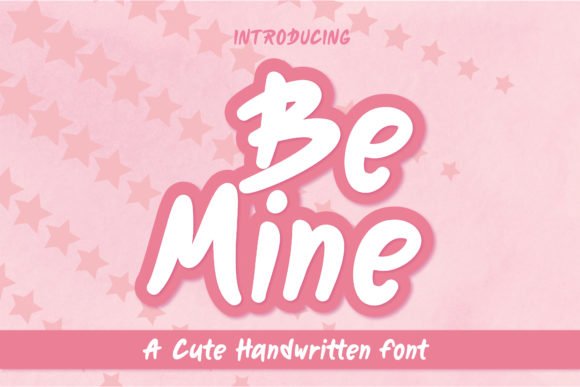
The Perfect Font to Make Your Designs Say ‘Be Mine’
Have you ever stared at a blank page, struggling to find the right words to express your creativity? You’re not alone. We’ve all been there, searching for that perfect font to bring our ideas to life. That’s where the Be Mine Font comes in – a charming, casual handwritten font that adds a personal touch to any design.
With its unique, natural style, the Be Mine Font is perfect for designers looking to add a handwritten flair to their projects. Whether it’s a heartfelt quote, a birthday card, or a company logo, this font is sure to make your design stand out. Its versatility makes it a valuable asset for any designer, and its beauty is undeniable.
Be Mine Font Key Features
- Font Size: Available in 2 font sizes: Regular (approximately 12pt) and Script (approximately 18pt).
- Resolution: Optimized for high-resolution displays (up to 300 DPI).
- Unique Characteristics: The Be Mine Font features a unique, hand-drawn design with playful, cursive script and bold, rounded edges.
- Language Support: Supports multiple languages, including English, Spanish, French, German, Italian, and more.
- Font Style: Available in both Regular and Script styles, with a range of font weights and ligatures.
Be Mine Font Review
At first glance, Be Mine Font seems like a sweet and charming script font perfect for Valentine’s Day-themed projects or romantic designs. ✨ The font’s soft and cursive lines give it a feminine touch, making it ideal for wedding invitations, greeting cards, or social media posts. ✨ The font’s versatility also allows it to be used for a wide range of creative projects, from stationery to gift tags.
However, upon closer inspection, I noticed a few limitations that may affect its usability. ⚠️ The font’s spacing and letterform design can be inconsistent, which may lead to layout issues or poor readability in certain contexts. ⚠️ Additionally, the font’s size and style options are limited, making it difficult to achieve the desired level of customization.
Overall, Be Mine Font is a lovely script font that can add a touch of whimsy and romance to your designs. While it may not be the most versatile or professional font, it’s perfect for personal projects or creative endeavors where a playful, handwritten feel is desired.
Here are some pros and cons to consider:
- ✨ Beautiful, cursive lines that evoke a sense of romance and whimsy
- ✨ Versatile and suitable for a wide range of creative projects
- ⚠️ Inconsistent spacing and letterform design may lead to layout issues
- ⚠️ Limited size and style options
Use the “Be Mine Font” to create eye-catching graphics, cards, and documents for Valentine’s Day, anniversaries, and other romantic occasions.
Combine the font with other design elements, such as hearts, flowers, and Cupid, to create a cohesive and festive look.
Use the “Be Mine Font” to create:
- Valentine’s Day cards and gifts
- Anniversary invitations and decorations
- Romantic social media
Alternatives to Be Mine Font
Great Vibes is a beautiful, elegant script font that is perfect for creating a romantic and whimsical atmosphere. It features flowing connections between letters, making it ideal for wedding invitations, love letters, and other heartfelt messages. Compared to Be Mine Font, Great Vibes has a more refined and sophisticated look, making it suitable for a wider range of designs.
Literata
Literata is a modern, handwritten font that is great for adding a touch of personality to your designs. It features a mix of cursive and print lettering, making it perfect for creating a unique and eye-catching look. Compared to Be Mine Font, Literata has a more modern and edgy feel, making it suitable for designs that require a bold and trendy look.
Carolyna Pro is a elegant, script font that is perfect for creating a luxurious and sophisticated look. It features flowing connections between letters and a classic, timeless feel, making it ideal for high-end designs, such as luxury branding, weddings, and special occasions. Compared to Be Mine Font, Carolyna Pro has a more refined and sophisticated look, making it suitable for a wider range of high-end designs.